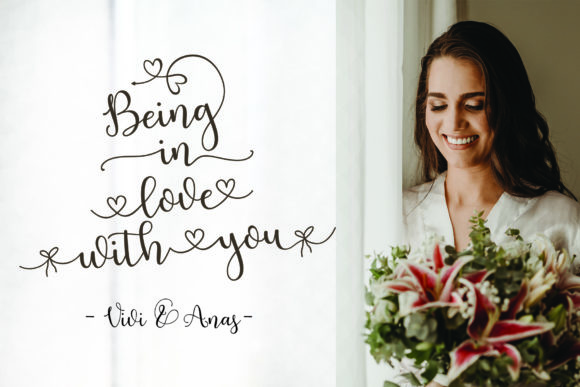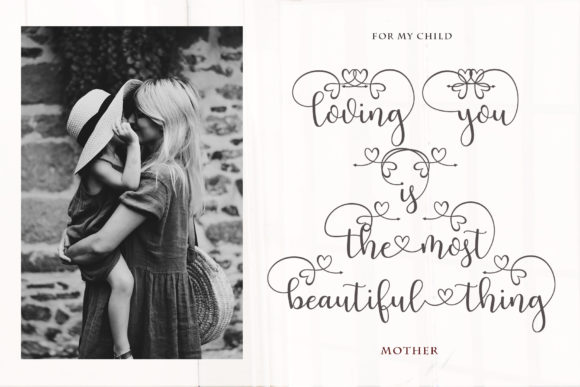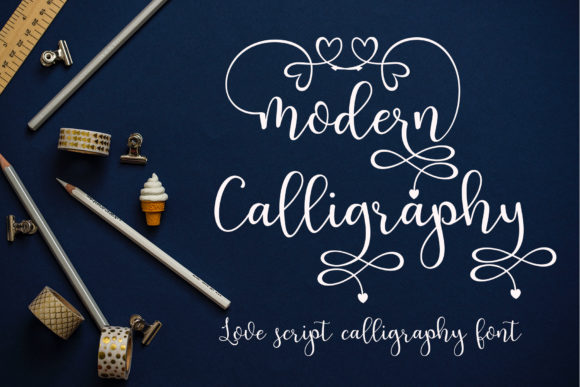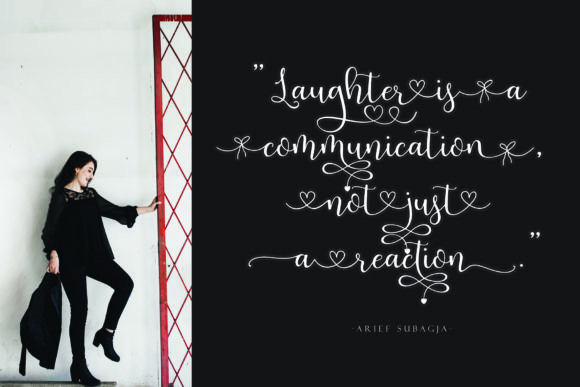
Salsa Billa Font
About Salsa Billa Font
Salsa Billa is a sweet and beautiful script font. It features amazing swashes and ligatures that give your projects a unique, romantic touch.